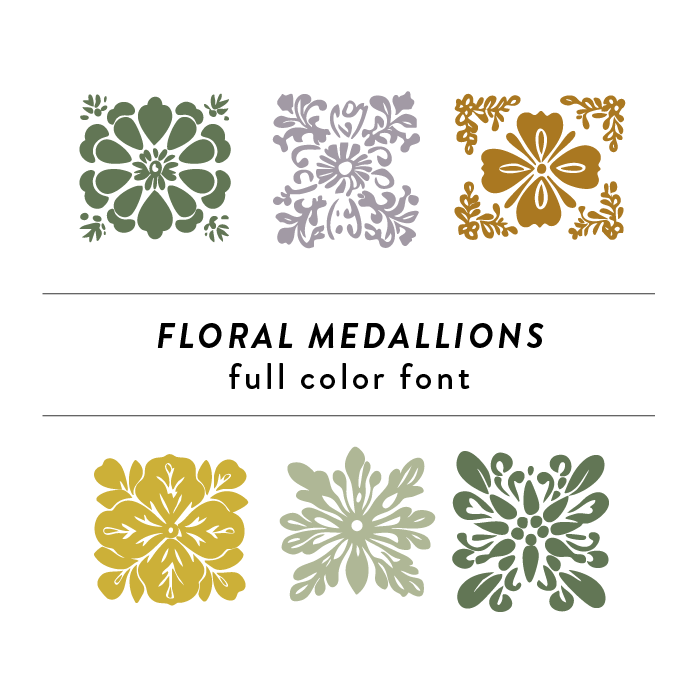
Floral Medallions Full Color Font features intricate floral patterns in vibrant colors to create a unique and elegant design. This font is perfect for adding a touch of sophistication and beauty to any project. Ideal for crafting, invitations, and decorative purposes. This font is a OTF craft font that will appear in color only when used with the silhouette software.